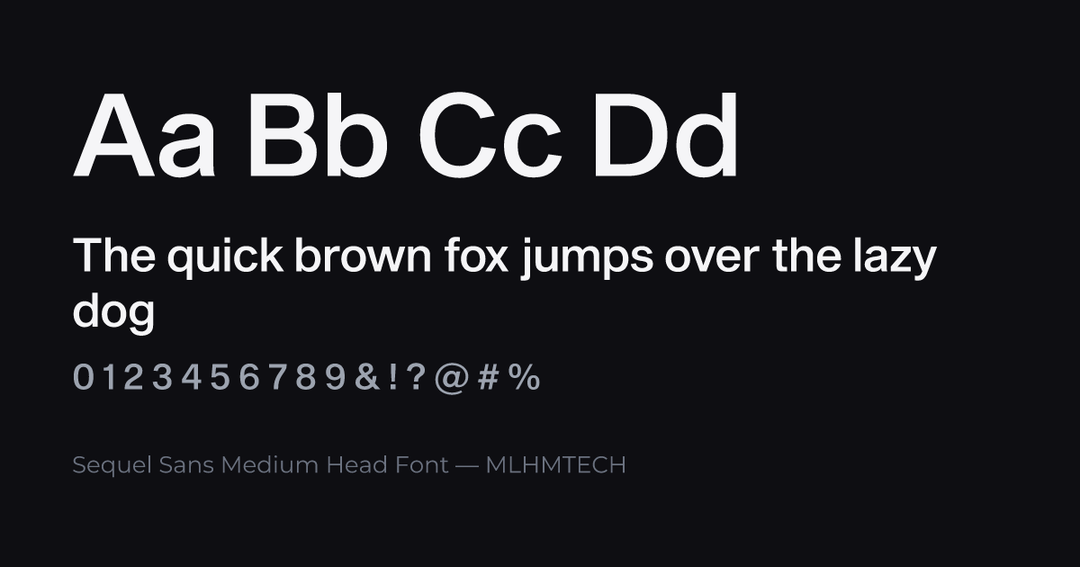
Sequel Sans Medium Head Font
Sequel Sans Medium Head is a versatile sans-serif font designed for headlines and display use. Its clean, geometric forms add a modern touch to any project.
Sequel Sans Medium Head is part of the Sequel Sans family, known for its contemporary and neutral design. This medium weight is ideal for headings, titles, and branding where you need a strong yet approachable presence. The font's balanced proportions ensure excellent legibility even at large sizes, making it a go-to choice for posters, logos, and web design.
With its clean lines and subtle geometric structure, Sequel Sans Medium Head pairs well with both serif and sans-serif fonts. It supports multiple languages and includes standard punctuation, making it a practical addition to any designer's toolkit. Whether you're working on a corporate identity or a creative project, this font delivers a professional and polished look.